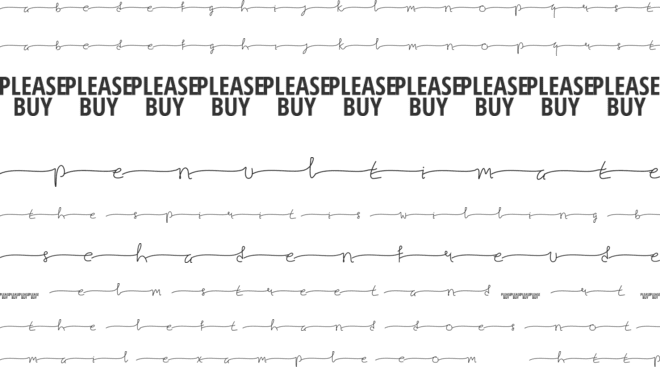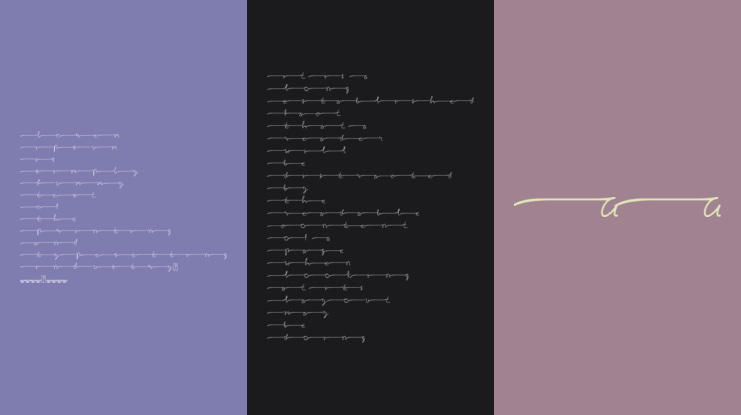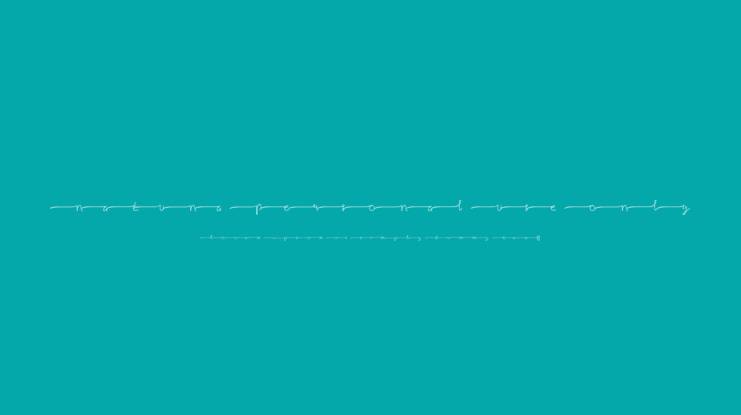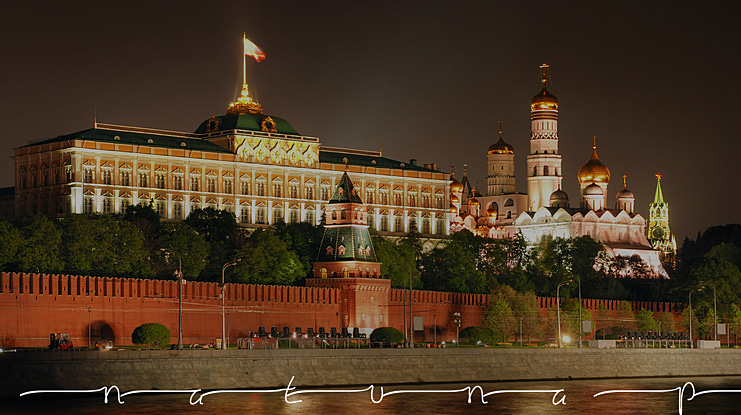
Natuna PERSONAL USE ONLY Font
hi, how are you all? I hope you stay healthy and happy. This time I returned with a new product called "Natuna". I took the name Natuna from the name of the ocean which is rich in marine ecosystems. and Natuna is where I live. namely Indonesia.
for this font, I retain my handwriting style, but I combine it with a touch of modern calligraphy. it is seen from the tail of each letter the same length.
for my font this time, I made the font size the same. i.e. the upper and lower case letters are the same as the same tail.
This font is perfect for any needs. can be for marriage invitations, greetings, business cards, or according to your wishes.